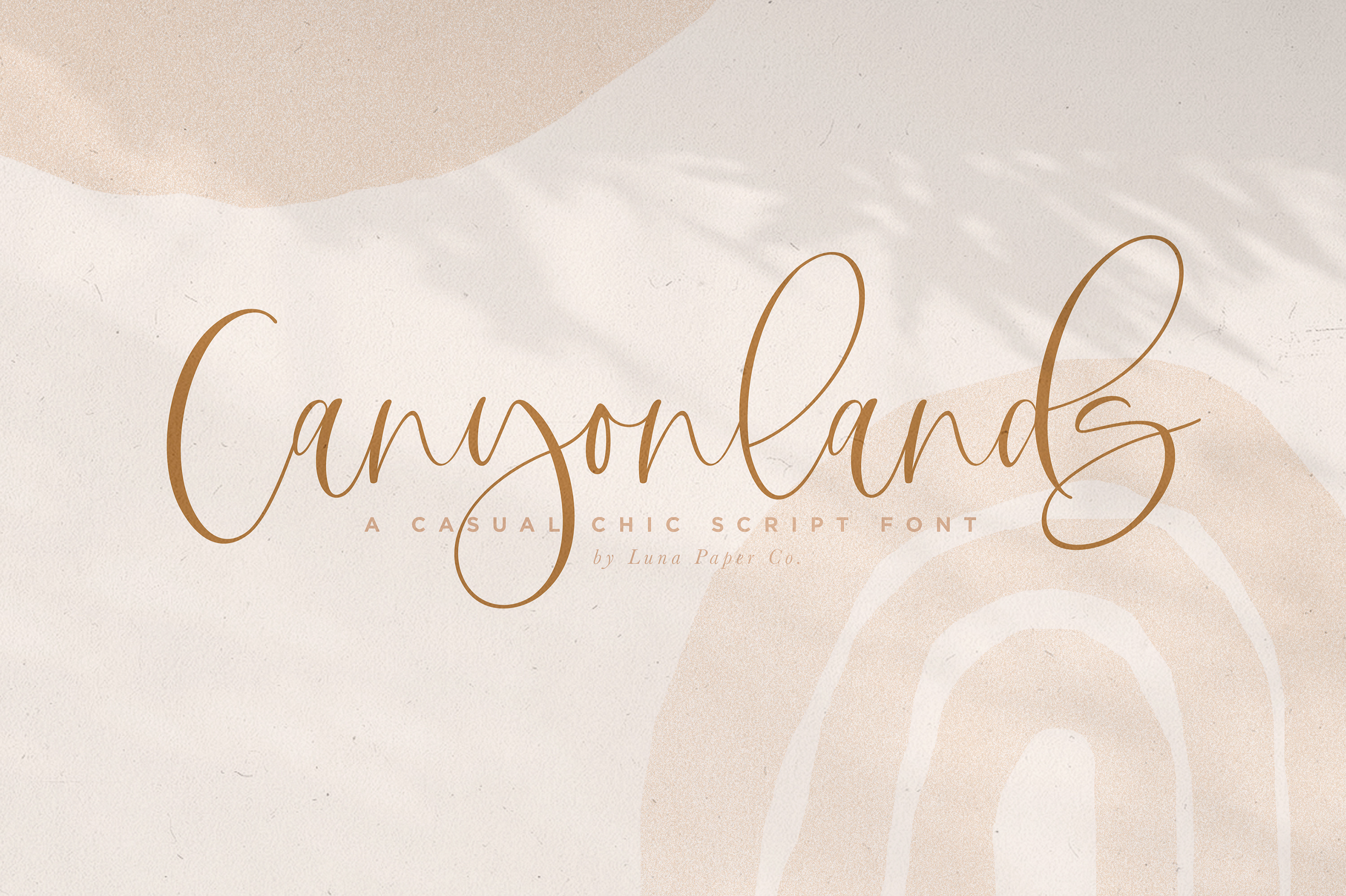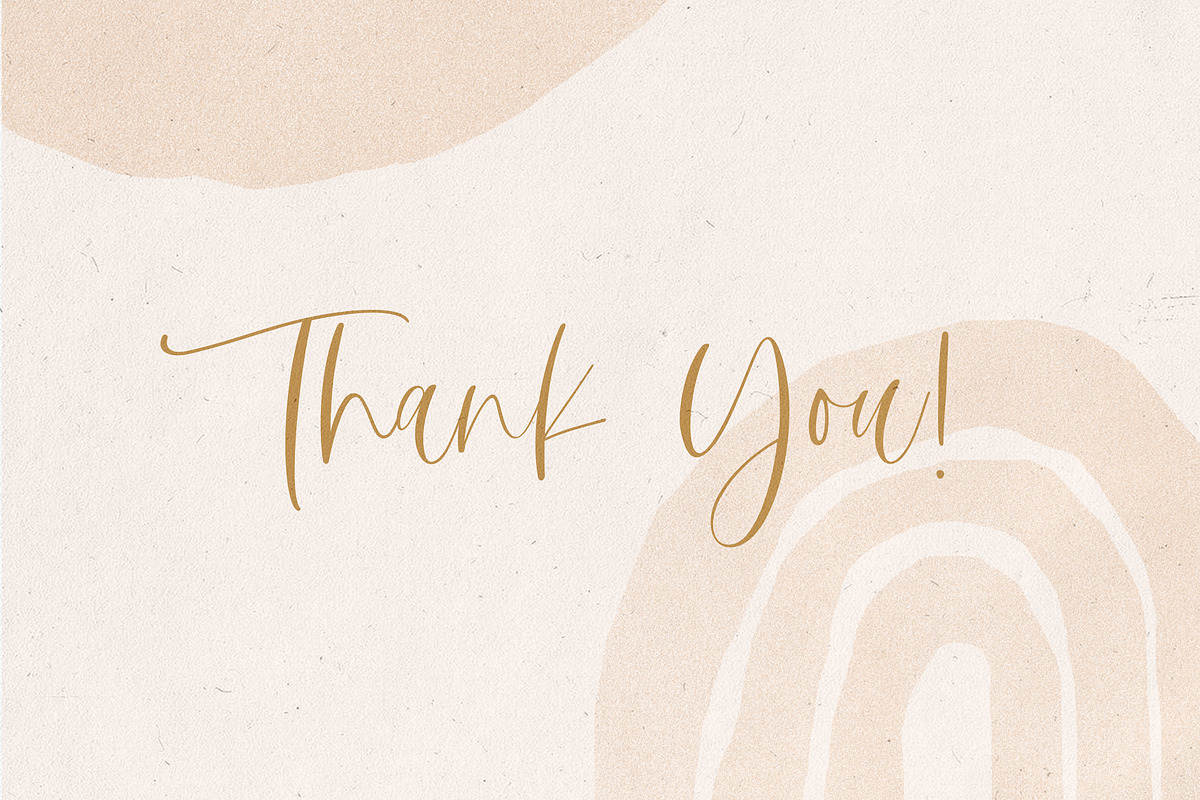
Canyonlands Script Font
Say hello to summer with the beautiful, new Canyonlands Script font! This casual-chic, hand-lettered script font is perfect for styling logos, stationery, social media, websites and so much more!
Canyonlands was created with multilingual support and over 45 ligatures, allowing you to create a real hand-written look to your projects. This feature works best in programs that support OpenType features, such as Adobe Indesign CS, Adobe Illustrator CS, or Adobe Photoshop CC.
The multilingual characters included are as follows: ÁĂÂÄÀĀĄÅÃÆĆČÇÐĎĐÉĚÊËĖĒĢÍÎÏÌĪĮĶĹĽĻŁŃŇŅŊÑÓÔÖÒŐŌØÕŒÞŘŔŚŖŠŞŦŤŢÚÛÜÙŰŪŲŮẂŴẄẀ ÝŶŸỲŹŽŻáăâäàāąåãæćčçðďđéěêëėèēģíîïìīįķĺľļłńňņŋñóôöòőōøõœþŕřŗśšşßŧťţúûüùűūųůẃŵẅẁýŷÿỳźžż